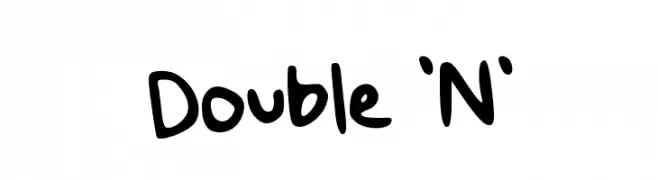
A playful, garden-themed decorative font with a hand-drawn style.
A playful, handwritten font with bold, expressive strokes and a casual style.
A playful, casual handwritten font with uneven strokes and a lively appearance.
A playful, casual handwritten font with uneven strokes and a spontaneous feel.
A playful, informal handwritten font with a casual and friendly vibe.
A playful handwritten font with a casual, flowing style.
A playful, handwritten font with a casual and personal touch.
A playful, handwritten font with uneven strokes and a lively, dynamic appearance.
A playful, handwritten font with a casual and friendly appearance.